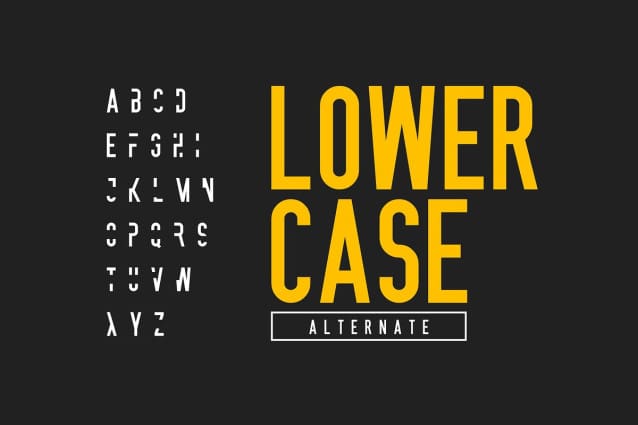
Sabang Island Font
Sabang Island Font a bold statement with our latest sans-serif font. With its clean lines and modern appeal, this font is sure to turn heads and leave a lasting impression. Perfect for headlines, logos, and any design that demands attention. It is both functional and stylish, making it a versatile choice for a wide range of design projects.
Sabang is a city located on Pulau Weh and is the gateway in the western tip of Indonesia. Currently Sabang transformed into a marine tourism destination Indonesia that offers a paradise for divers.
From this island we are inspired to give the name of the product we made.